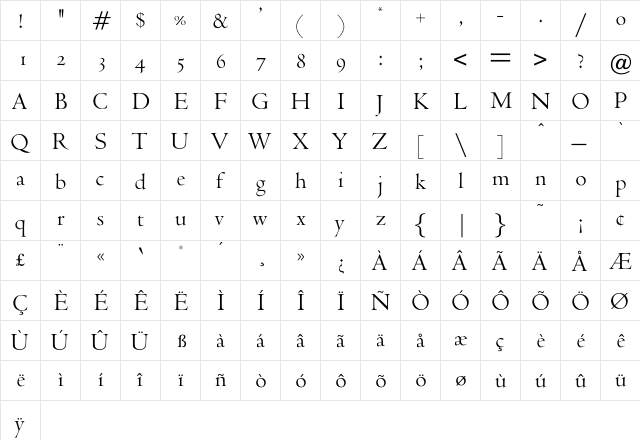
Armand Regular
Design Context for Armand Typeface
Armand takes a measured approach to typography — its balanced proportions and neutral character make it a reliable workhorse for both digital and print work.